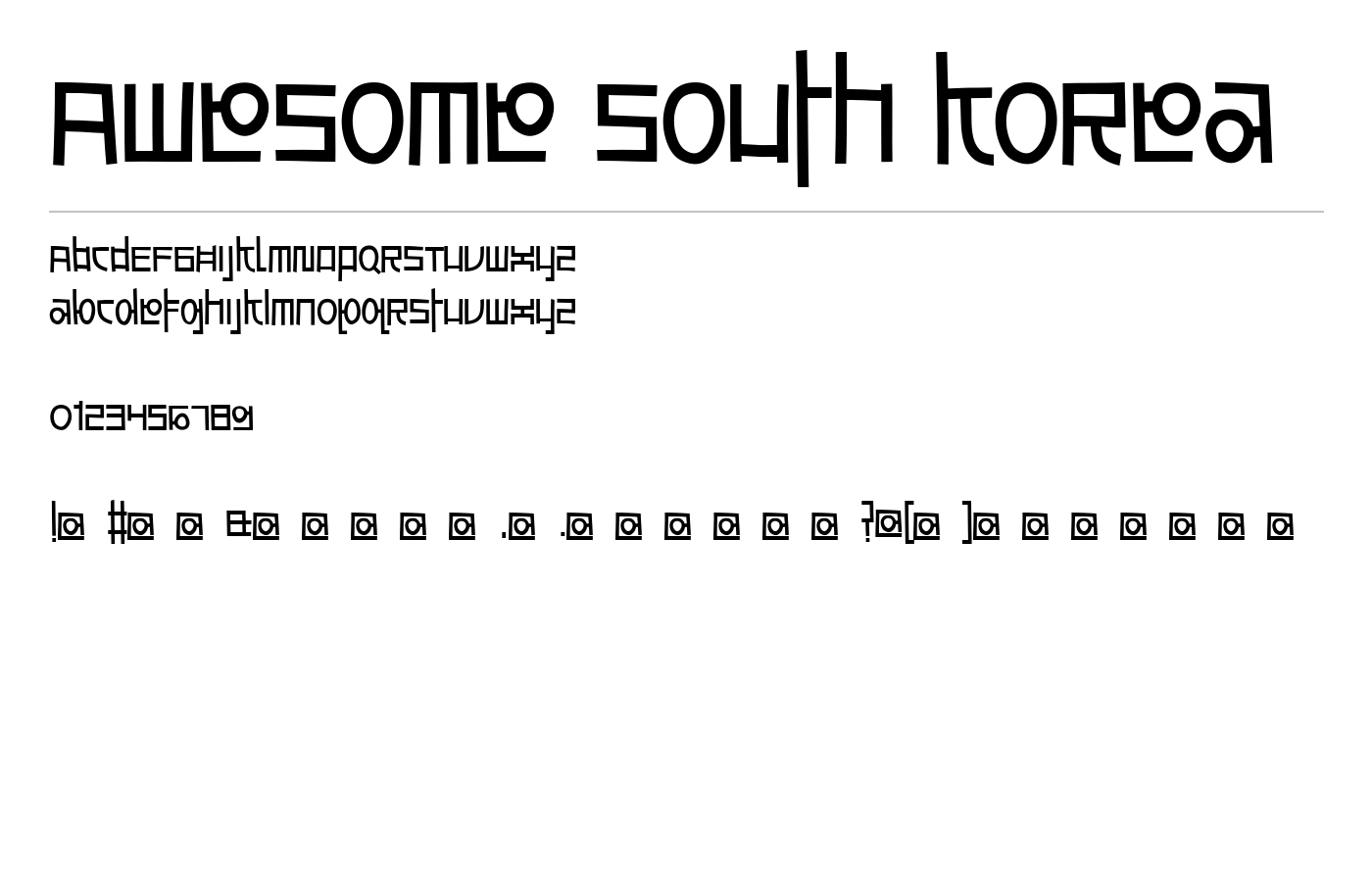
Awesome South Korea is a quirky, geometric sans serif font characterized by its narrow, tall letterforms and playful, unconventional shapes that evoke a modern yet artistic vibe. With its consistent stroke weight and unusual character details, it works well for creative projects, logos, and headlines that aim to make a distinctive and futuristic impression. This font is ideal for designers looking to add a unique, energetic personality to fashion, tech, or entertainment branding.
Awesome South Korea Font
About Awesome South Korea Font